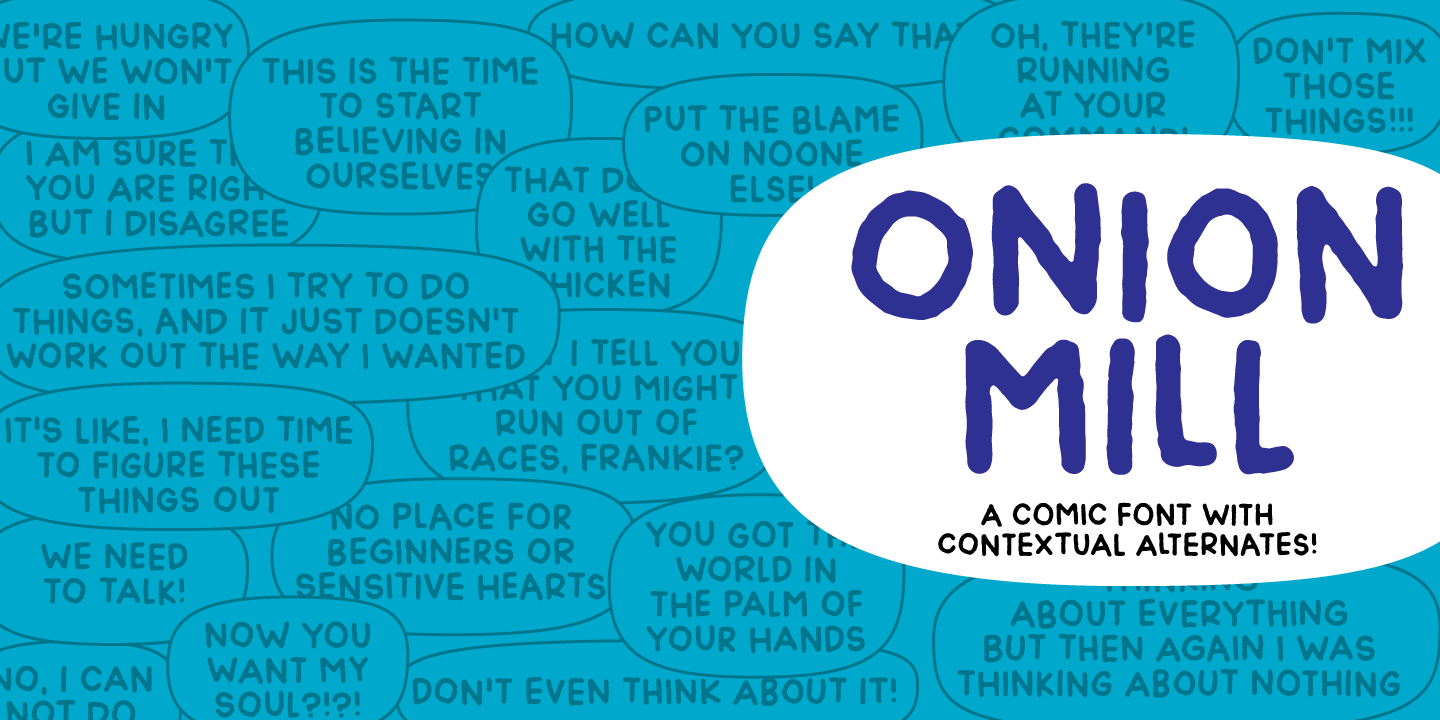
Onion Mill Font is perfect for rustic restaurant branding, farm-to-table establishment signage, organic food packaging, artisan kitchen product labels, country market advertising, heritage grain mill branding, traditional bakery materials, agricultural cooperative logos, vintage cooking magazine headers, and authentic rural lifestyle campaigns.
What makes Onion Mill Font so exciting is its authentic rustic character that beautifully captures the timeless essence of traditional mills and artisanal food craftsmanship. This charming display typeface features weathered letterforms, handcrafted textures, and mill-inspired styling that creates an immediate sense of heritage authenticity and wholesome tradition, making it the perfect choice for brands that want to communicate genuine craftsmanship, natural quality, and the honest simplicity of traditional food production.
The Onion Mill Font family includes regular, bold, weathered, and ornate versions, along with agricultural symbols, mill motifs, farm-inspired icons, and rustic decorative elements. Each style maintains the font's signature authentic character while providing designers with versatile options for creating genuinely wholesome communications that celebrate the enduring values of traditional craftsmanship and natural food heritage.
Whether you're designing for artisanal food producers or heritage agricultural brands, Onion Mill Font Free Download brings authentic countryside charm to every project. The font's traditionally crafted letterforms ensure excellent readability while maintaining its distinctive rustic character that resonates with consumers who appreciate authentic quality, traditional methods, and the honest goodness of handcrafted products.
This authentically designed typeface works beautifully across both traditional print materials and modern artisanal digital platforms. The Onion Mill Font maintains its rustic appeal whether displayed on vintage packaging or contemporary farm-to-table websites, making it essential for brands that celebrate the timeless values of authentic craftsmanship and natural food traditions.
Grind your way to authentic appeal with Onion Mill Font and experience typography that mills every message with the honest goodness of traditional craftsmanship.